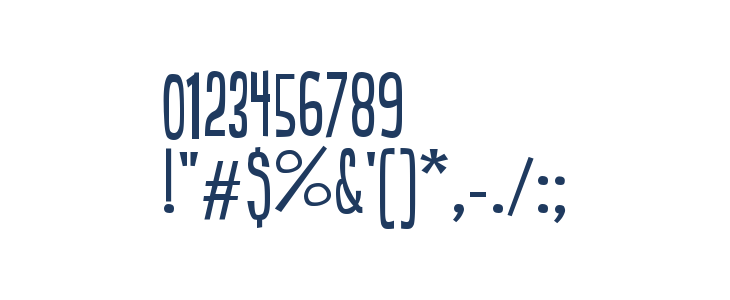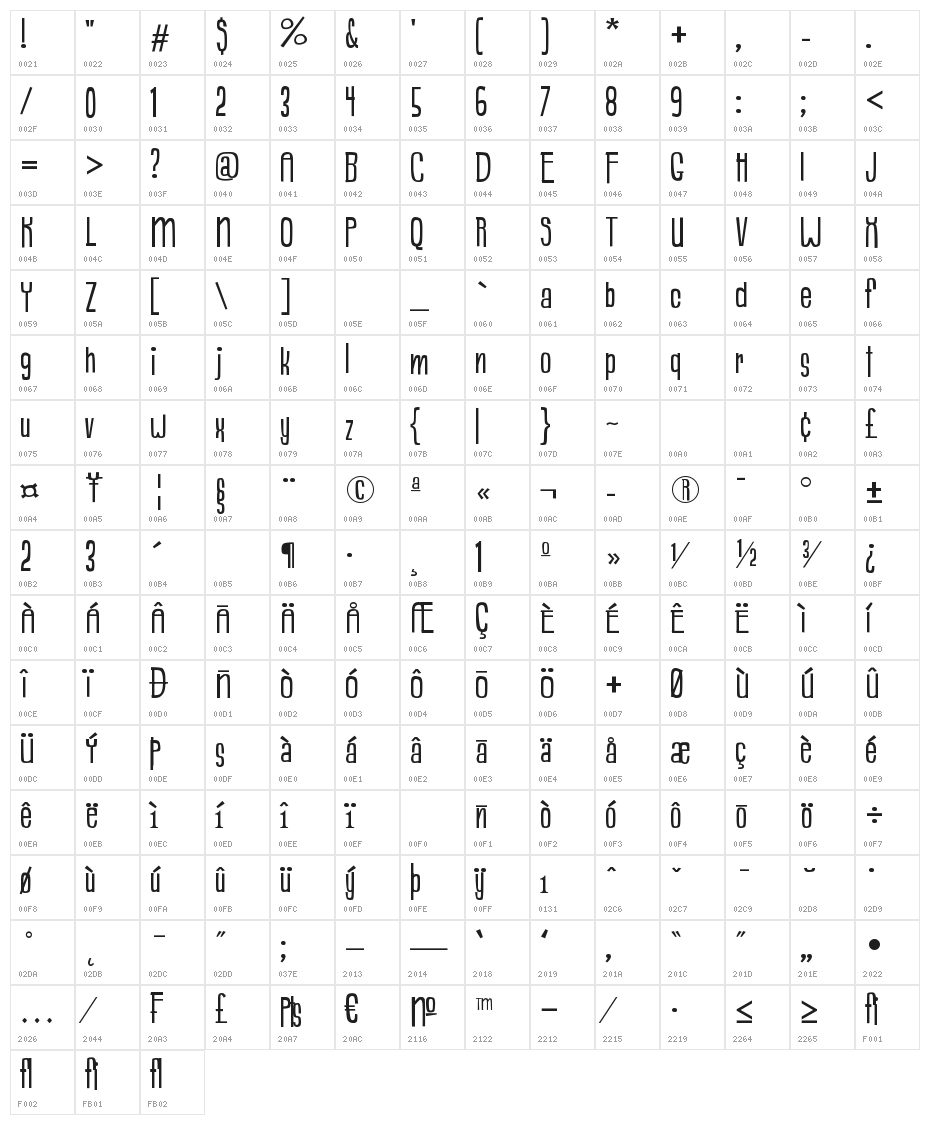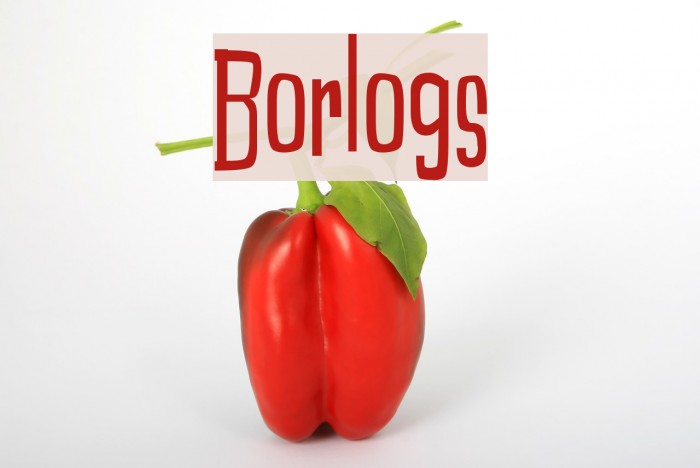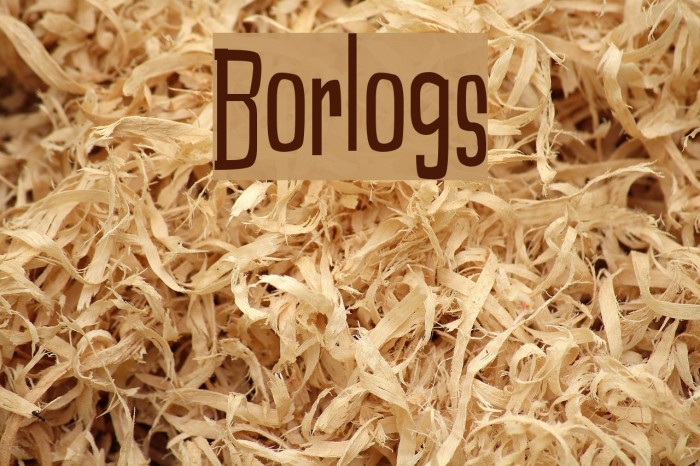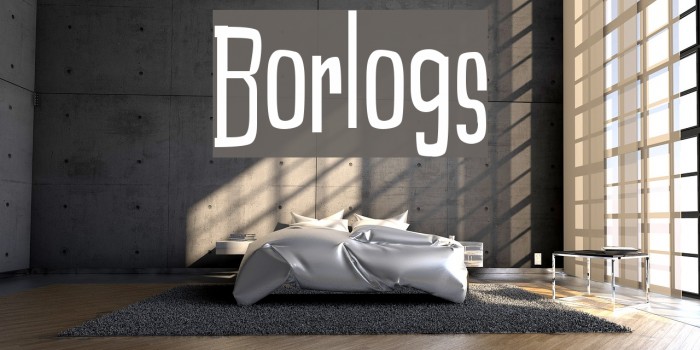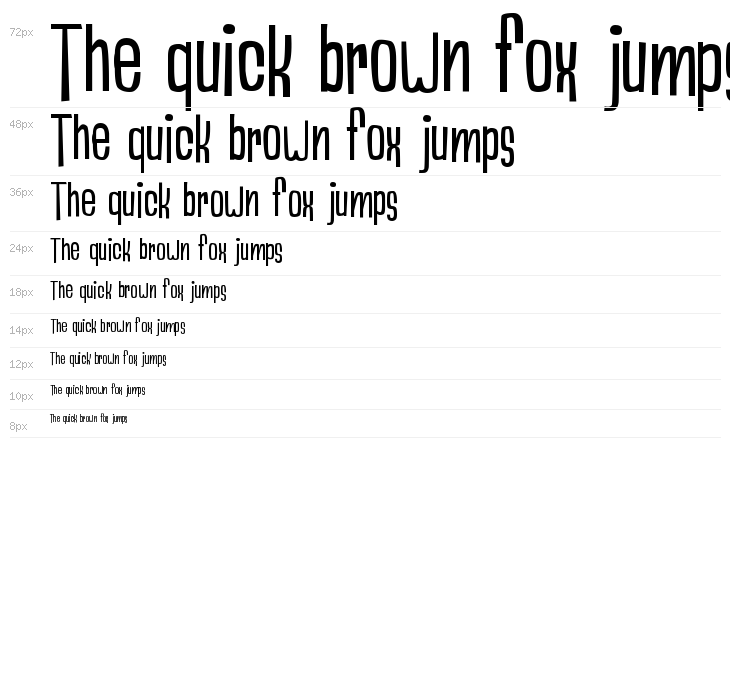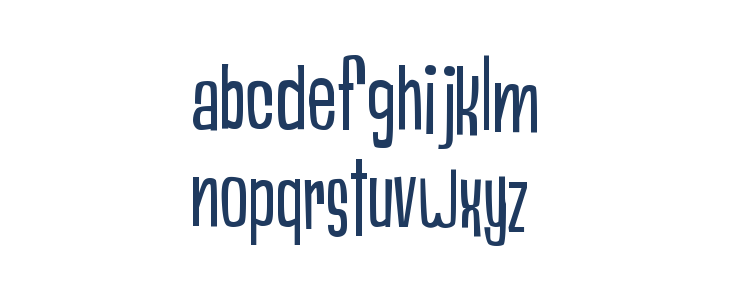
Borlogs Font
Borlogs Description
This font features a unique, elongated design with a modern twist. The characters are tall and narrow, giving it a distinctive appearance that stands out. The uppercase letters maintain a consistent height, while the lowercase letters are slightly shorter, adding a playful touch. The numbers are similarly styled, with a clean and straightforward look. Special characters are included, maintaining the same elongated style. The overall design is sleek and contemporary, making it suitable for various creative projects.